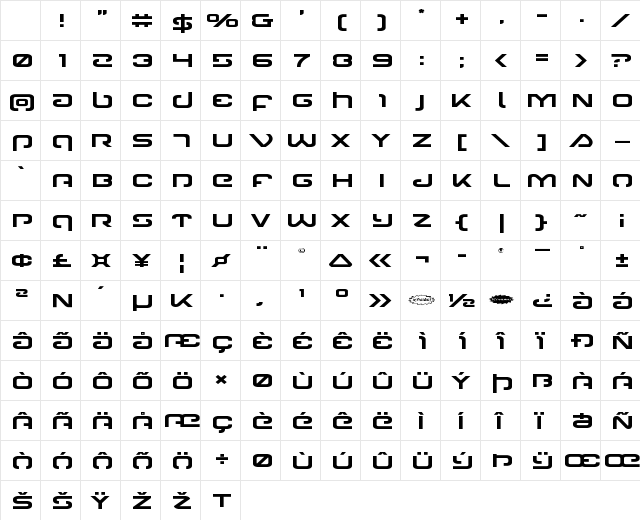
Complete Gunrunner Expanded glyph index. Displaying only characters natively supported by Gunrunner Expanded font.
Gunrunner is a composed and adaptable typeface that performs quietly and consistently across a wide range of design contexts.